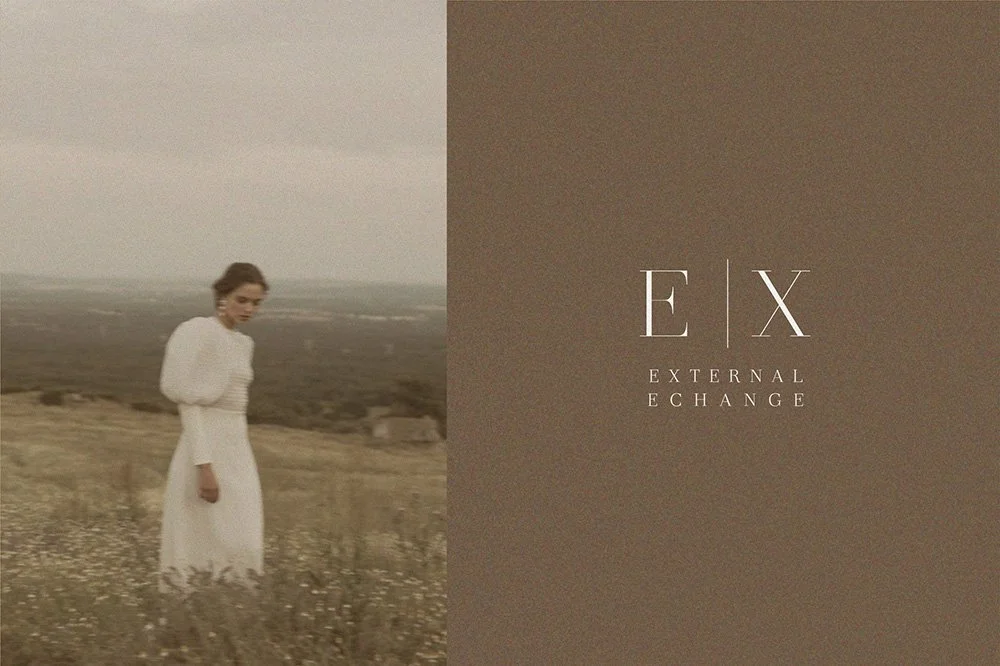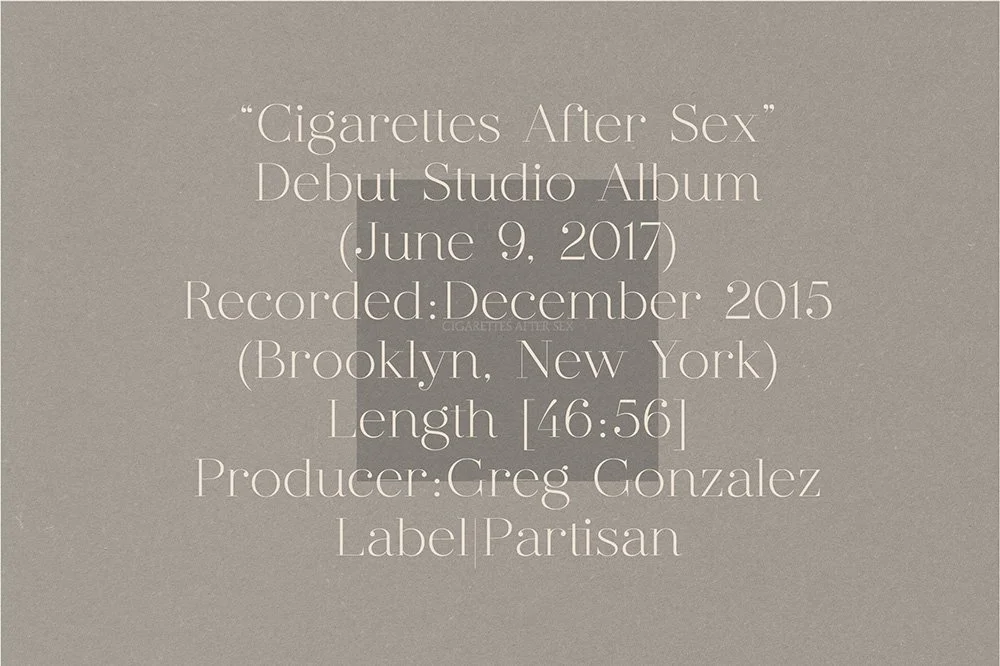
dear ivy, - fashion modern serif
dear ivy, - an à-la-mode display modern serif, inspired by Didot aesthetics. Specially designed for haute couture projects, perfectly suitable for creating fashionable, bold designs such as titles, magazines, social media, and more. The font comes with 6 free fashion-themed social media templates and features standard ligatures.
Ligatures
All European languages
Vietnamese